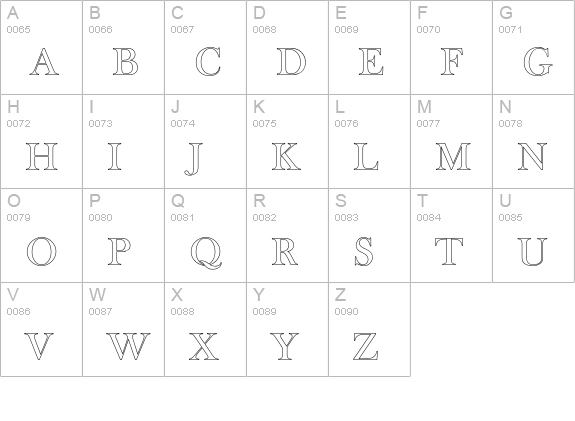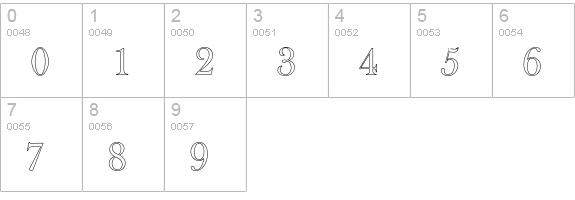
Baskerville Old Face D Ou1 Font Details
The Baskerville Old Face D Ou1 font is a classic and elegant typeface that exudes sophistication and timelessness. Its refined serifs and balanced proportions make it ideal for a wide range of design projects, from formal invitations to editorial layouts. This font captures the essence of traditional typography with a modern twist, making it a versatile choice for both print and digital applications. What sets the Baskerville Old Face D Ou1 font apart is that it is freely available to download at FontsMarket.com. This means that you can easily access this high-quality typeface without any cost, making it a valuable addition to your font collection. Whether you're a designer looking for a reliable serif font or a content creator in need of a professional typographic solution, the Baskerville Old Face D Ou1 font is sure to meet your needs with its timeless charm and accessibility.